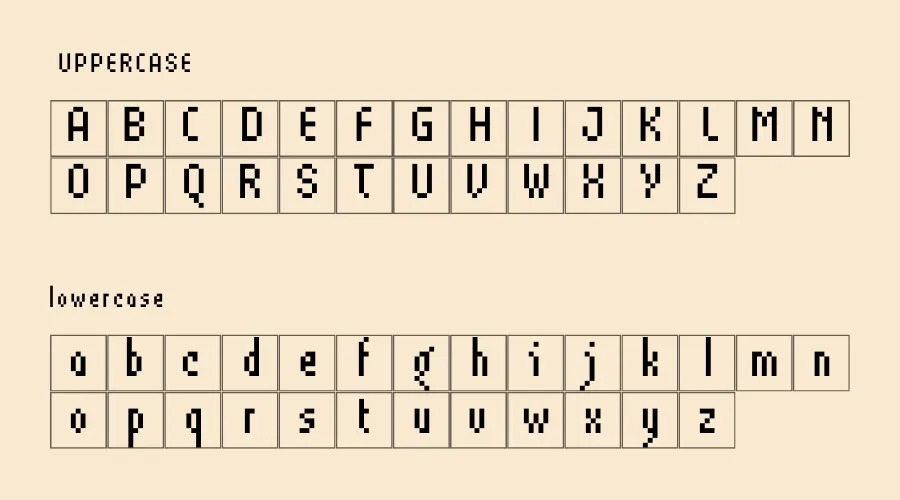
About Lomo Copy Zigg Font
Lomo Copy Zigg Font is created by Linotype it is decorative text style. Using this typeface makes it simple to create stunning tattoos. It may be used to design designs and make banners in addition to printing t-shirts and posters.
By combining them with different typefaces, you may create original designs. Headlines, subtitles, and headers are just a few of the numerous applications for this beautiful font family. With its overall glow, you'll obtain a textured look.
With this typeface, you'll have a fantastic feeling. It may be used for a variety of tasks, such as creating postcard, computer game visuals, and website designs. Both a project with a natural theme and one with a vintage feel might benefit from using it.